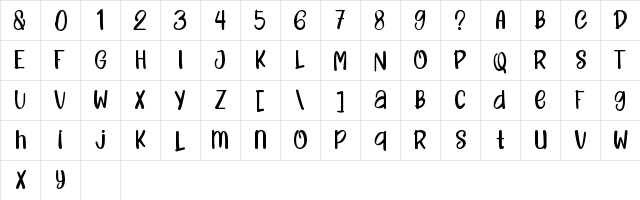
POWER SELL Regular
Design Context for POWER SELL Typeface
POWER SELL brings high-energy athletic personality to the page — its confident, muscular forms are built for impact.
Built for sports team identities, athletic apparel, event posters, and high-energy promotional material.
Pro Tip: POWER SELL thrives on contrast — try it large, bold, and tight against a clean background for maximum visual impact.